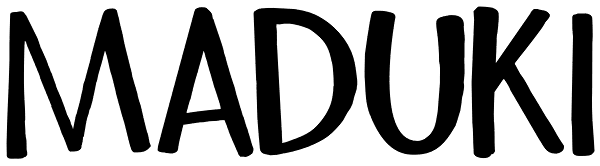
Maduki
This time the font's name is meaningless. Maduki doesn't mean 'cool' in Swahili, nor does it mean 'cup cake' in Sranantongo. It is just a nice name. Maduki is a playful font, created with one of my 2 year old son's marker pens (the 'no stain...
Maduki
Maduki Italic